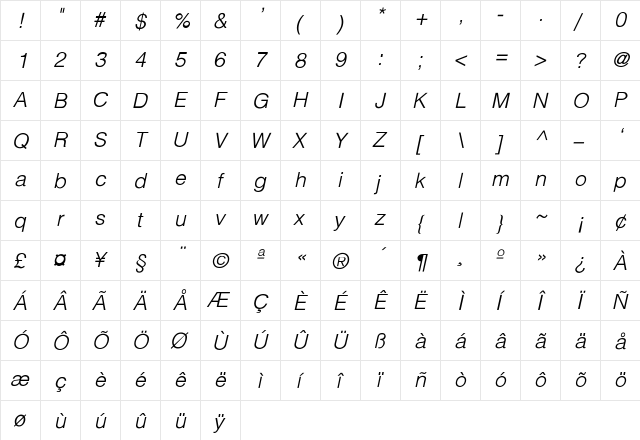
Bern Light Italic Regular
Design Context for Bern Light Italic Typeface
Bern Light Italic offers clean, dependable letterforms without strong stylistic allegiance, making it a practical choice for designers who need flexibility. The dynamic lean of this cut emphasises speed and emphasis in any layout. Its slender proportions lend an understated elegance to any composition.
Pro Tip: Use Bern Light Italic for emphasis, pull quotes, and subheadings where its slanted energy can add rhythm to the layout.